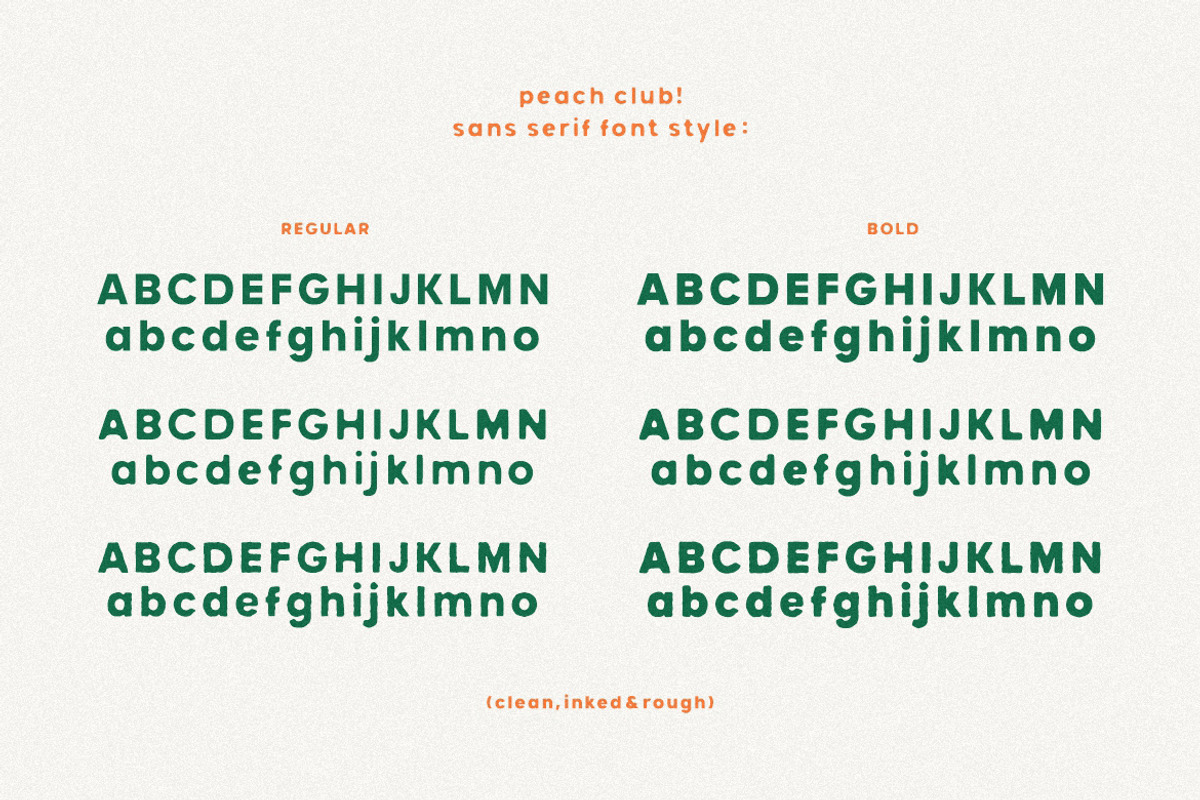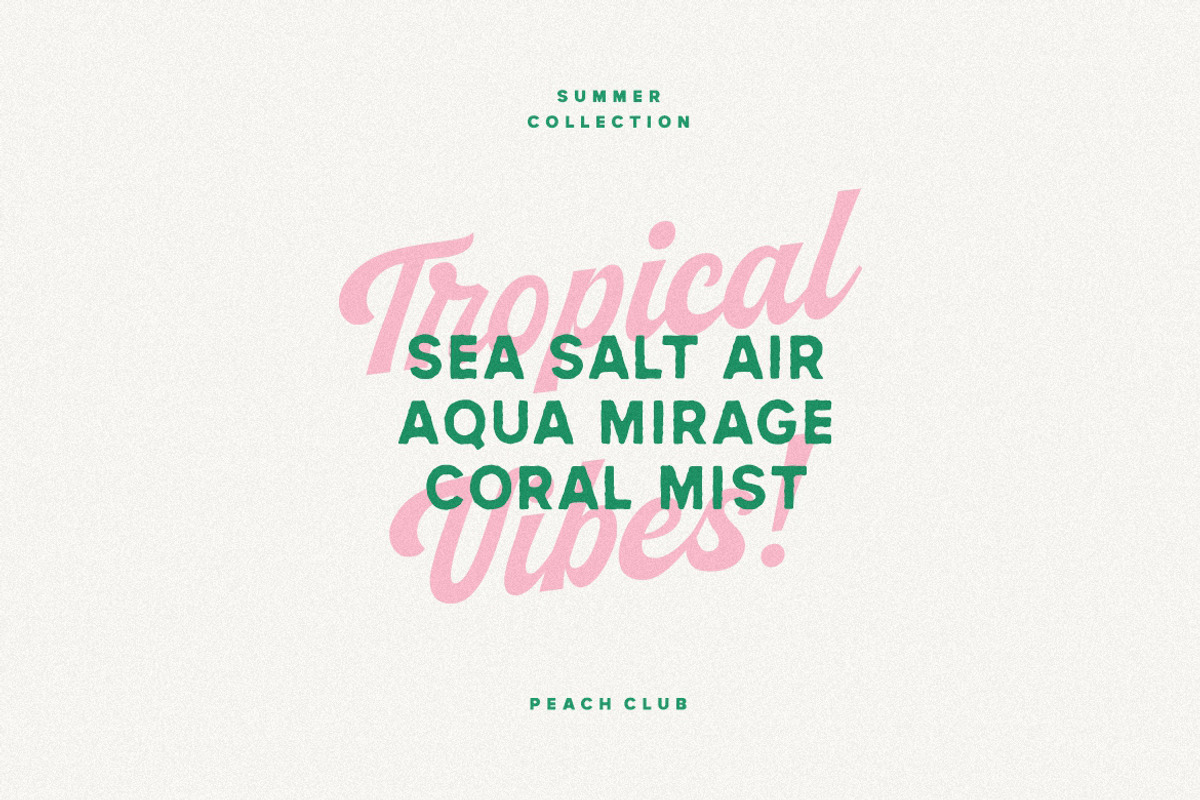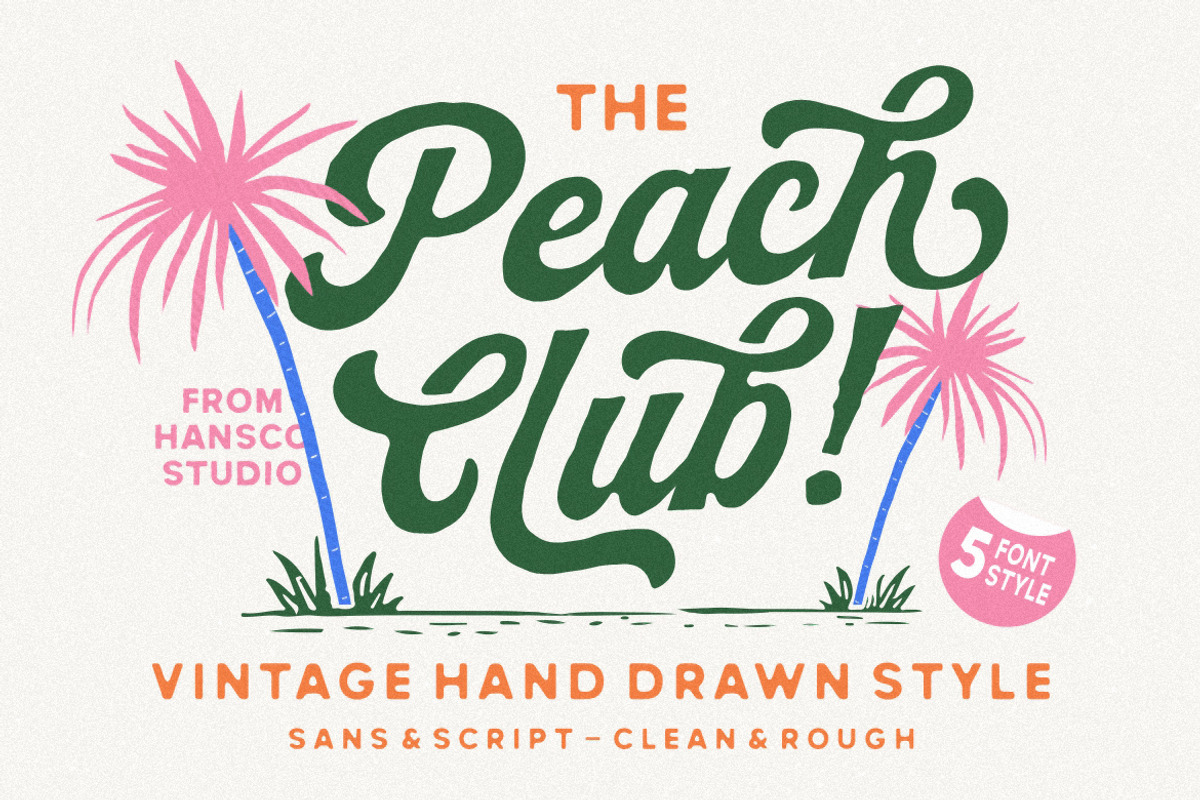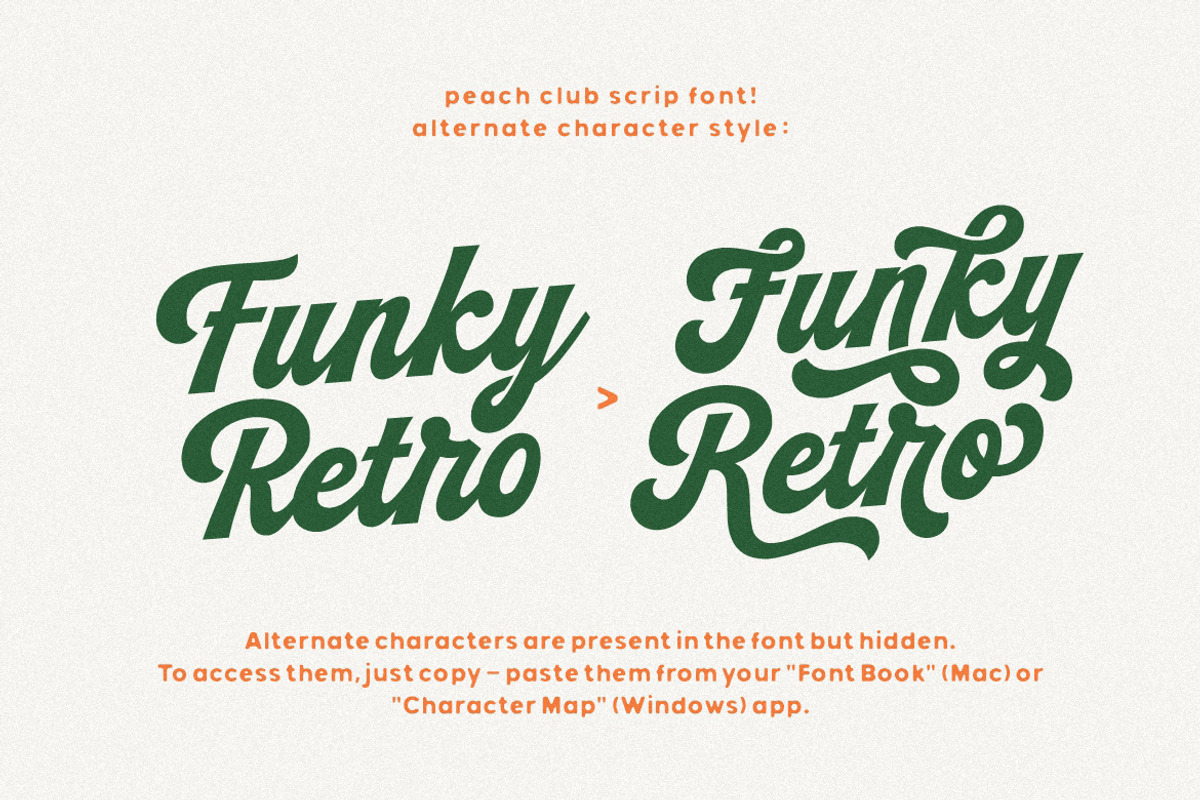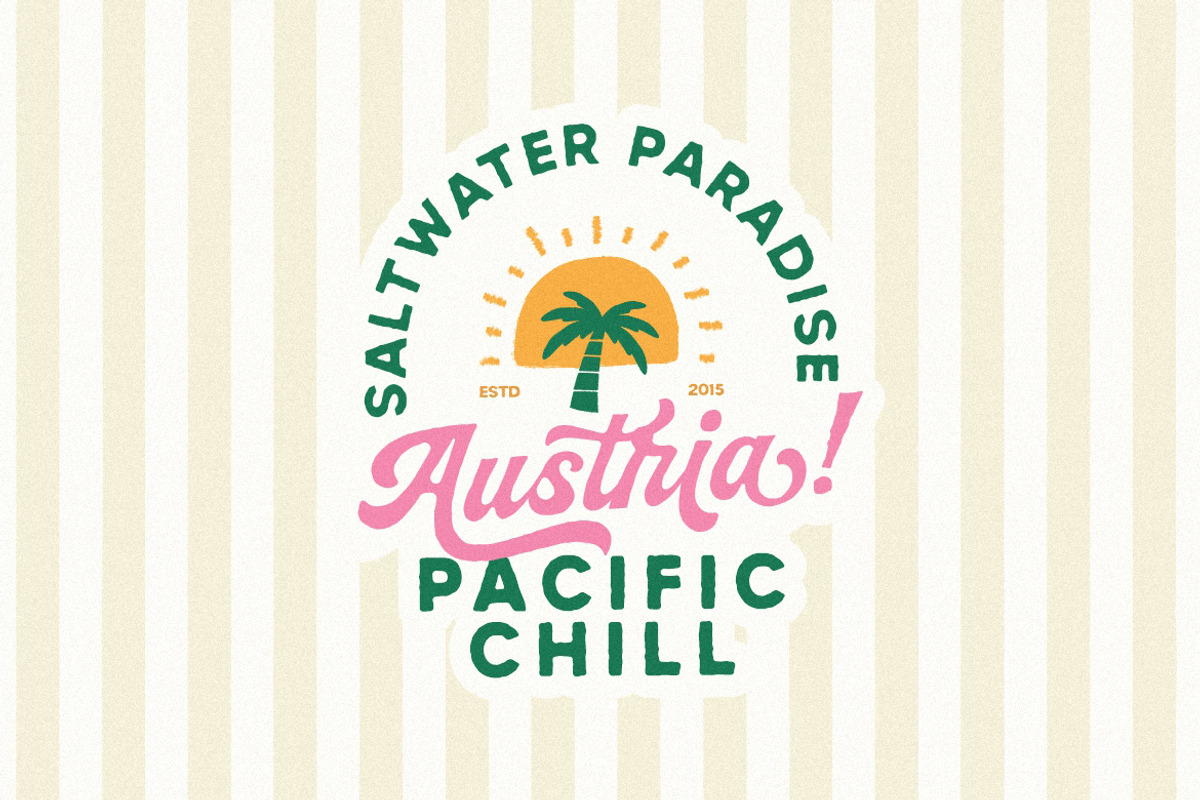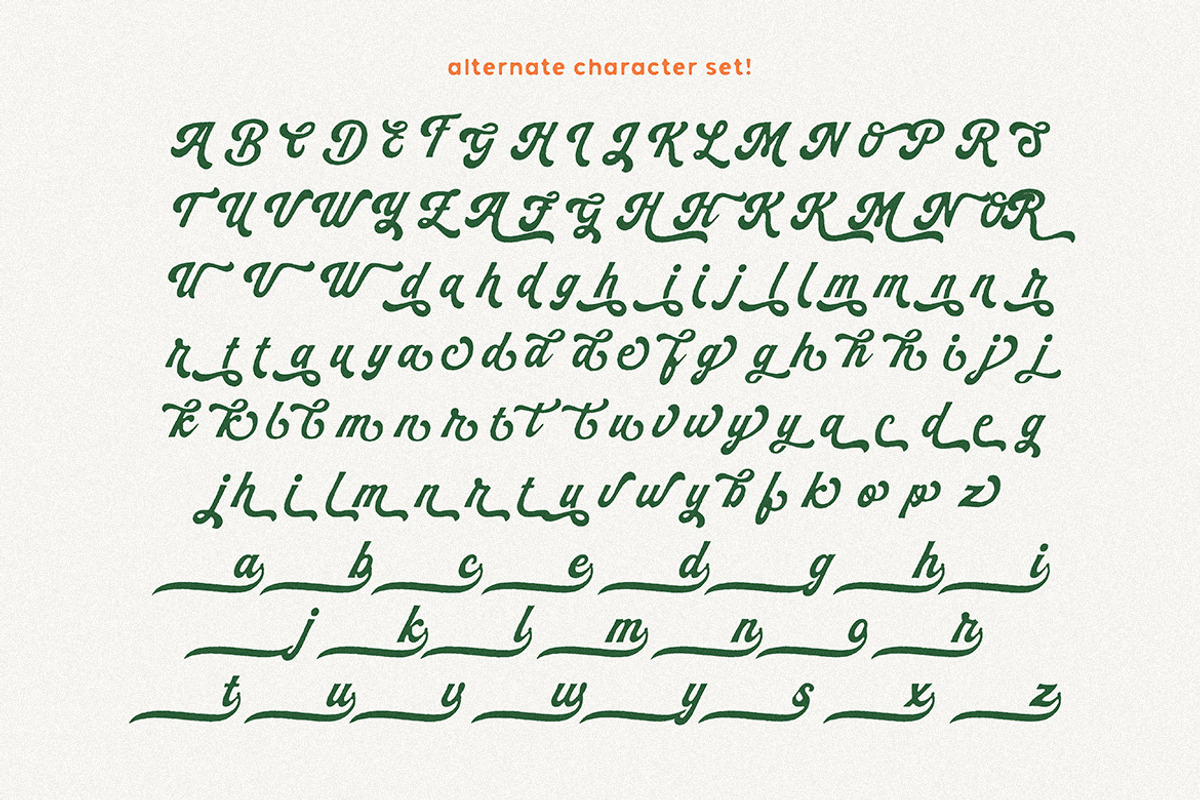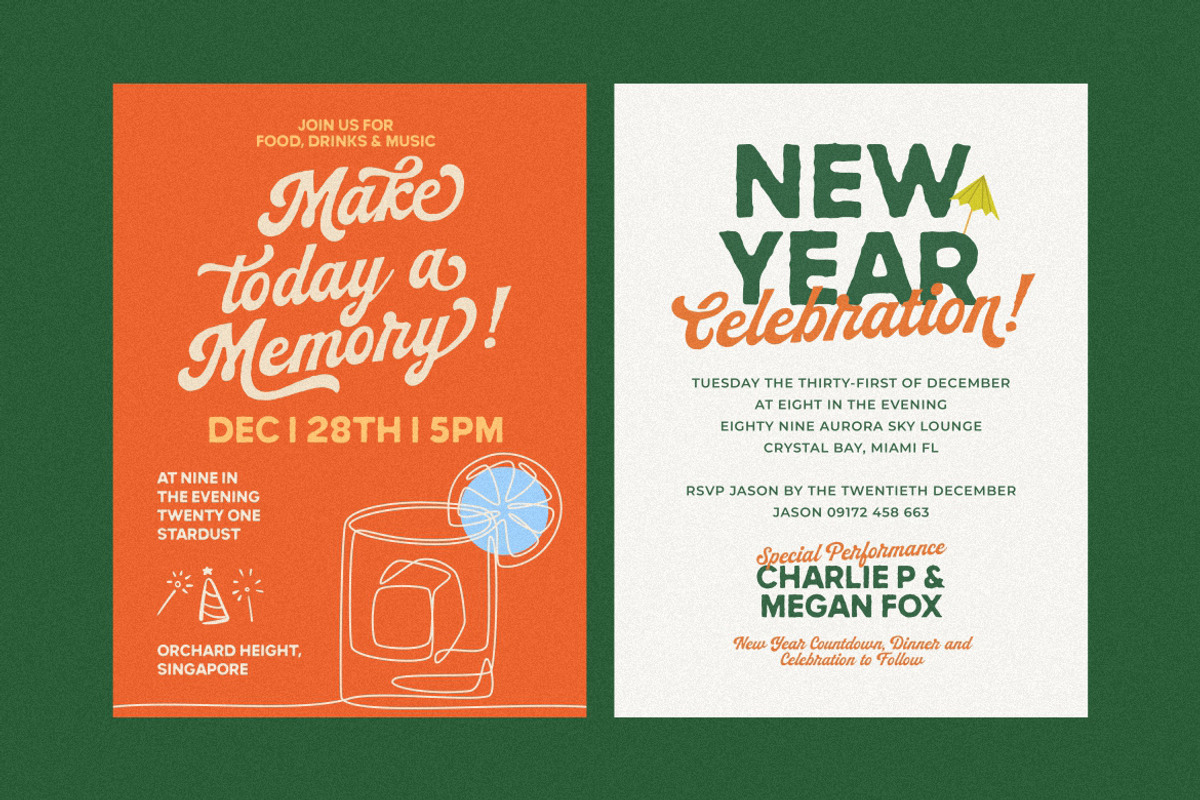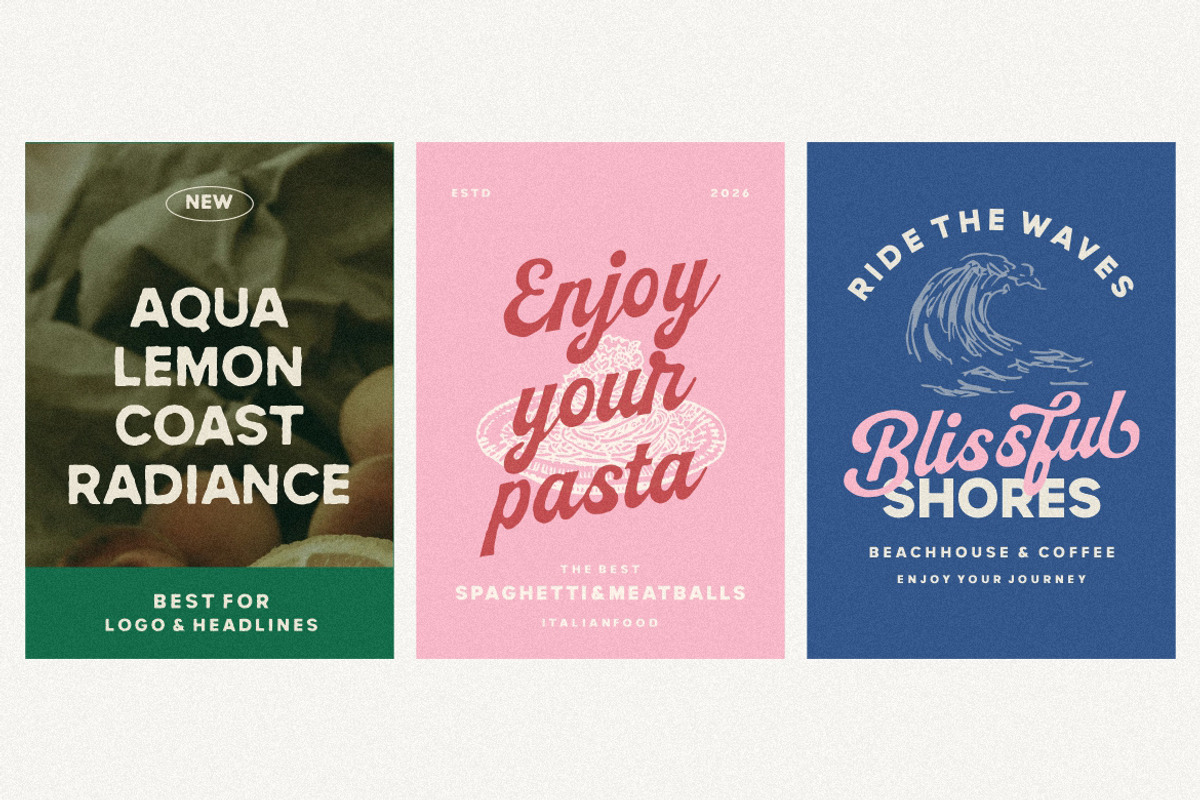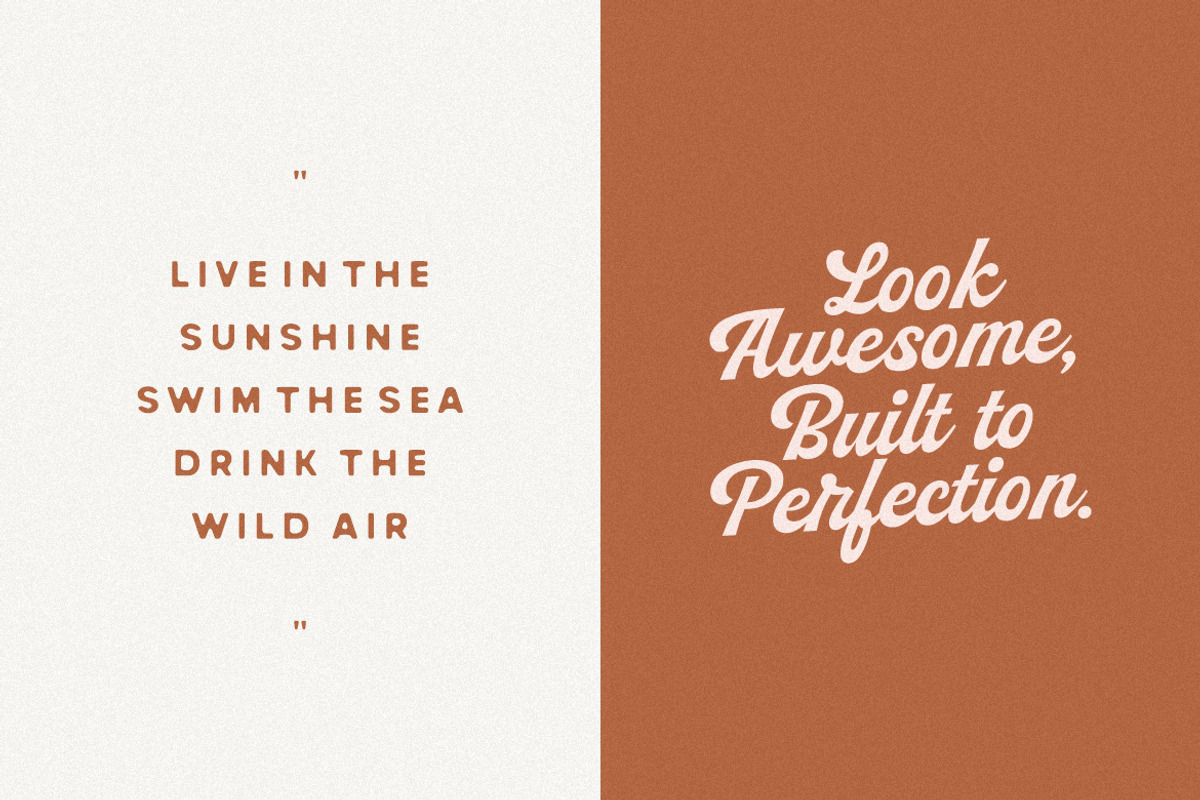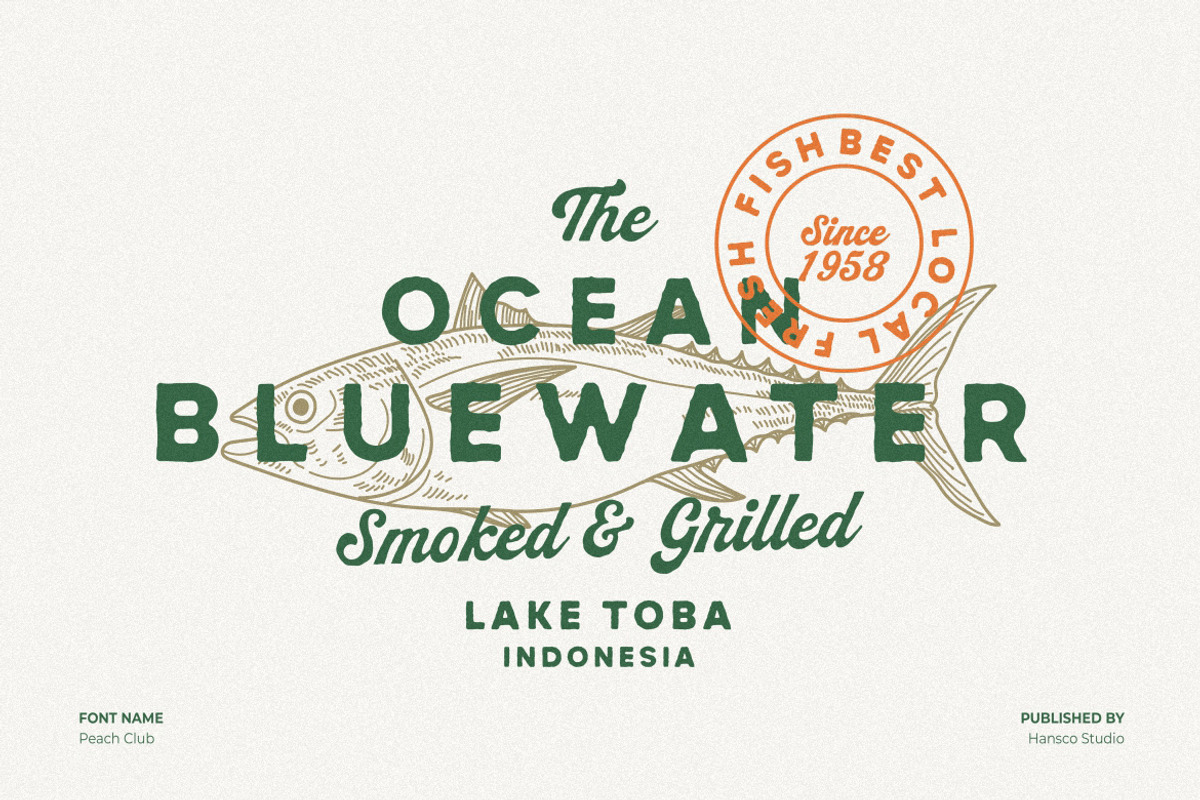
Peach Club Font
Introducing a beautifully crafted Hand-Drawn\\ Peach Club Font \*\*that combines the charm of classic script lettering with the clean versatility of a modern sans serif. The script font features natural strokes, smooth curves, and authentic hand-drawn imperfections, giving your designs a warm, nostalgic personality. Perfect for logos, branding, packaging, and vintage-inspired artwork. Paired with a complementary sans serif, this bundle ensures readability and flexibility, making it ideal for layouts, headlines, and supporting text.
Standard Multilingual
Alternate Character (Script handdrawn only!)